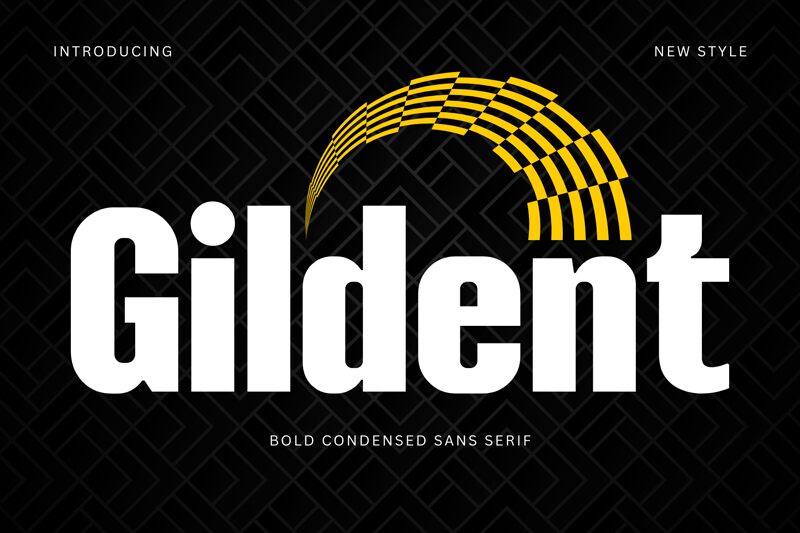
Gildent
Gildent font by Sronstudio is a free bold sans serif font that hits like a solid block of ink. Its ultra-thick strokes, compact width, and snug spacing create a dense, monolithic word shape that feels carved rather than typed. Rounded inner corners soften the weight just enough, giving Gildent a punchy, modern presence that reads clearly even at a distance.
Using Gildent, you get a heavyweight voice for posters, sports branding, logos, packaging, album covers, and social media headlines. This free font thrives when you let it run big and wide, turning short words into visual anchors. For supporting text, pair Gildent with a clean, light-weight geometric sans to keep the focus on those bold, blocky titles.